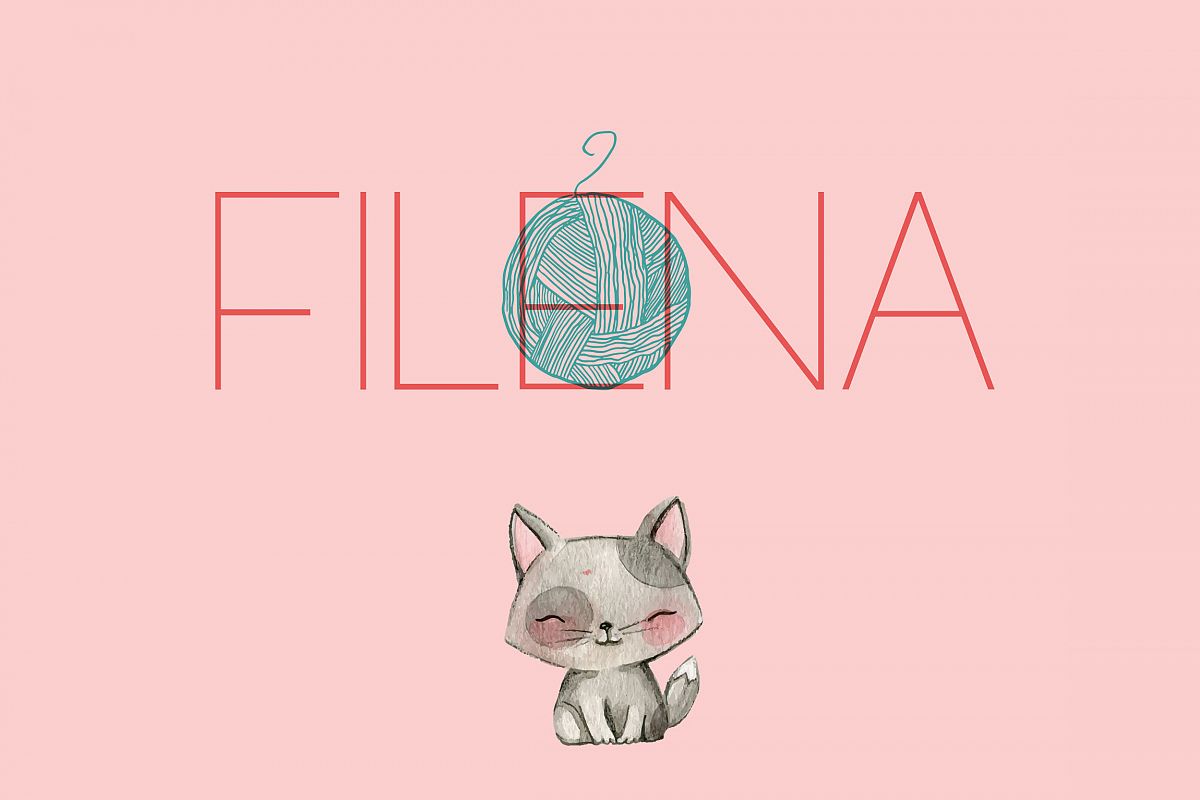
Meet Filena! Based on my dear grandma's cat! A lovely clean sans serif font, it's an all caps fonts with three weights, great for creating that classy look for wedding materials, magazines, etc.
All Caps Font